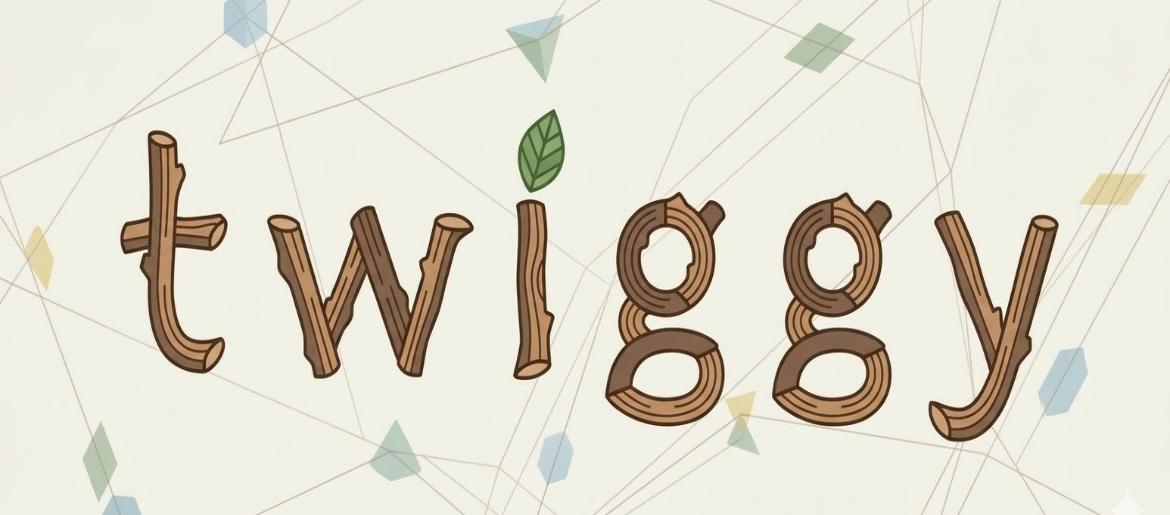
Twiggy Font
Twiggy by Amy Fowler is a wonderfully characterful wood display typeface whose crooked, cartoonish lowercase letters look as though they were assembled from fallen branches on a forest floor — organic, playful, and full of personality. The slight irregularity of each character is precisely what makes it so charming: it has the handmade warmth of a children’s illustration without ever feeling sloppy or unconsidered. An inspired choice for cartoon and children’s book titles, comic graphics, playful posters, kids’ games, and apparel design. Available for both personal and commercial use.